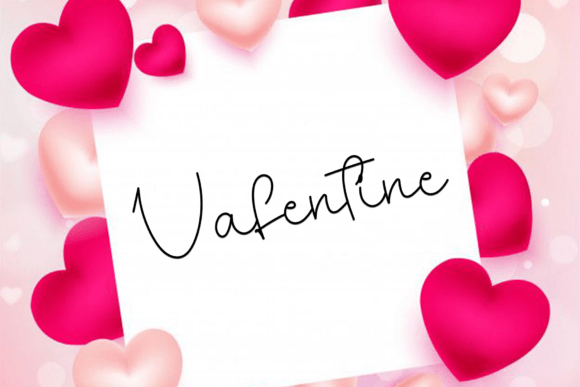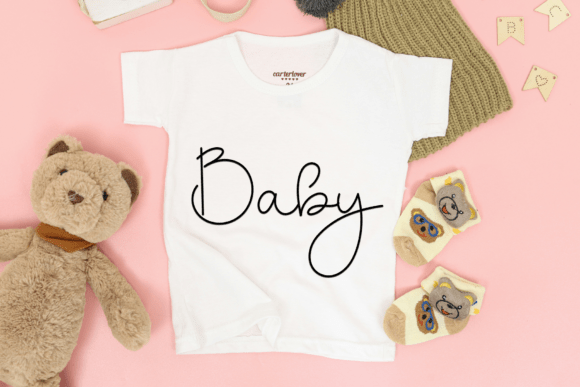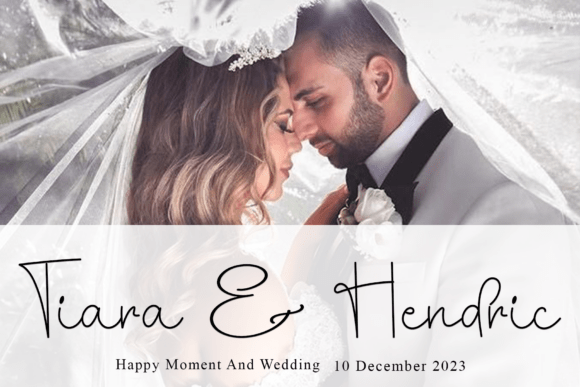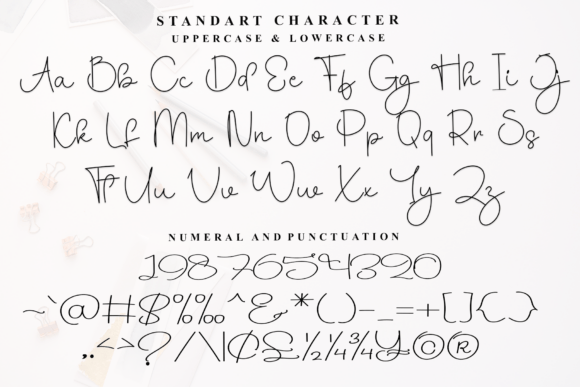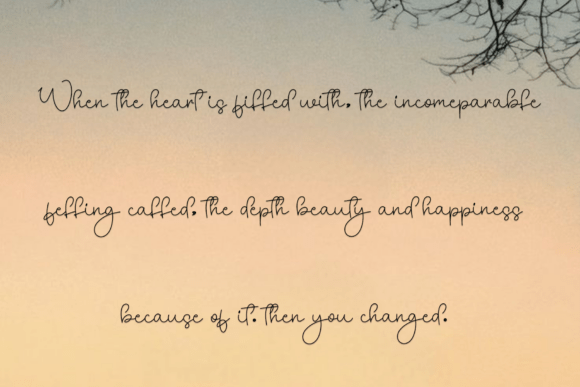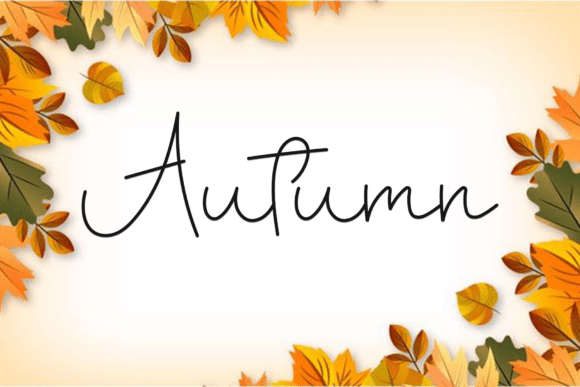
Dancing Valentine Font: Elevate Your Designs with Elegance and Sophistication
Are you searching for a font that exudes romance, elegance, and sophistication? Look no further than the Dancing Valentine font. This delicate and airy script font is part of a modern typeface collection that captures a unique and professional hand-penned aesthetic, making it perfect for designers and crafters looking to add a touch of luxury to their projects.
What Makes Dancing Valentine Font Stand Out?
The Dancing Valentine font features exceptionally fine monolinear strokes with a natural, upright posture. This distinctive characteristic sets it apart from other script fonts and gives it a refined, high-end look. The font’s delicate and airy feel makes it an excellent choice for designs that require a touch of elegance and sophistication.
Perfect for Romantic Brand Identities and More
Dancing Valentine font is a premier choice for various design projects, including:
- Romantic brand identities: Create a lasting impression with a font that exudes love and luxury.
- Boutique photography watermarks: Add a touch of elegance to your photos with a subtle yet sophisticated watermark.
- Elegant event stationery: Make your event invitations, programs, and other stationery materials stand out with a refined and classy font.
- Sophisticated personal blog titles: Elevate your blog’s title and header with a font that reflects your personality and style.
Why Choose Dancing Valentine Font?
Here are just a few reasons why Dancing Valentine font should be your go-to choice for your next design project:
- Unique and professional look: The font’s hand-penned aesthetic gives it a distinctive and professional look that sets it apart from other fonts.
- Versatility: Dancing Valentine font can be used for a wide range of design projects, from romantic brand identities to elegant event stationery.
- Elegant and sophisticated: The font’s delicate and airy feel makes it perfect for designs that require a touch of luxury and refinement.
Tips for Using Dancing Valentine Font Effectively
To get the most out of Dancing Valentine font, here are some tips to keep in mind:
- Use it sparingly: Due to its elegant and sophisticated nature, it’s best to use Dancing Valentine font sparingly to avoid overwhelming your design.
- Pair it with complementary fonts: Combine Dancing Valentine font with complementary fonts to create a visually appealing and harmonious design.
- Experiment with font sizes and colors: Play around with different font sizes and colors to find the perfect combination that suits your design.
In conclusion, Dancing Valentine font is a stunning and sophisticated script font that is perfect for designers and crafters looking to add a touch of elegance and luxury to their projects. With its unique and professional look, versatility, and elegant feel, it’s an excellent choice for a wide range of design projects. By following the tips outlined above, you can use Dancing Valentine font effectively and create designs that are truly unforgettable.